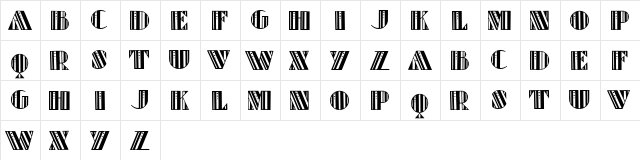
Retro Elite Regular
Design Context for Retro Elite Typeface
Retro Elite has the warm character of retro typography — evoking diners, record sleeves, and the golden age of print advertising.
Font Pairing: Combine Retro Elite with a simple slab or neutral sans — period-accurate companions reinforce the vintage feel without competing for attention.
Pro Tip: Use Retro Elite for headlines and pull quotes rather than body copy — its personality is best appreciated in short, focused bursts.